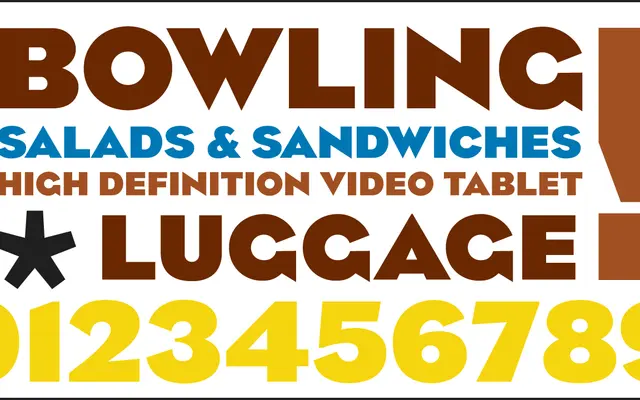
Recovery
A revival of Morris Fuller Benton's Eagle Bold, tracing back to Charles Coiner's heavy art deco lettering for the depression-era National Recovery Administration.
Rooted in Charles Coiner's alphabet of heavy art deco forms created for the National Recovery Administration in the 1930s, this revival works back through Benton's Eagle Bold to deliver a denser, more even wall of black than foundry type allowed. Benton's original letterforms have been adjusted for greater typographic intensity, and small caps have been added to give titles additional weight. Best suited to headlines and display work where a blunt, authoritative presence is required.
A revival of Eagle Bold, itself derived from Charles Coiner's heavy art deco letterforms for the National Recovery Administration; the extreme weight and decorative character place it firmly in the display category with an art deco subcategory.